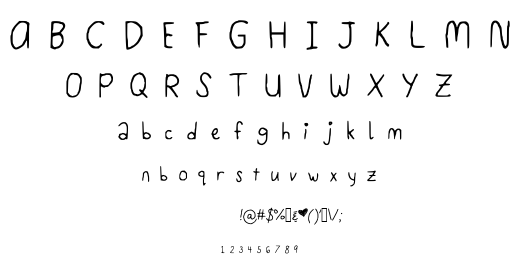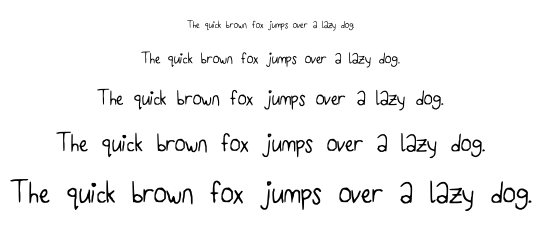
Weirdness rocks! Donuts rock too!
This font totally screams the icing and sprinkles out of your keyboard. It includes all numbers from A-Z and basic puntuation marks. Guess what? There are fun (and yummy!) doodles in the font too! You can see the code in the picture sample included.
Cream Donut…
“Sillyness just made yummier!”